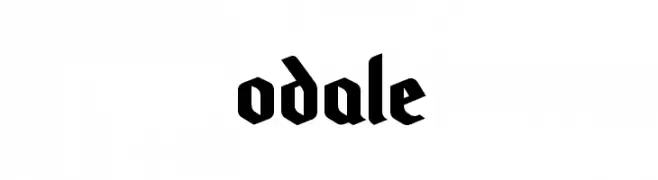
( Fonts by Pizzadude )
A bold, distressed font with a vintage, textured appearance.
( Fonts by Pizzadude )
A bold, textured font with a rustic, hand-drawn appearance.
( Fonts by Pizzadude )
A bold, hand-drawn font with a rough, artistic texture.
( Fonts by Pizzadude )
A playful, hand-drawn style with a rough, textured appearance.
( Fonts by Pizzadude )
A bold, textured font with a rugged, vintage appearance.
( Fonts by Pizzadude )
A playful, hand-drawn font with a whimsical and informal style.
( Fonts by SlawaS )
A bold blackletter font with sharp, angular lines and a gothic aesthetic.
A bold, dynamic font with sharp angles and a hand-drawn, brush-like appearance.
( Fonts by Pizzadude )
A bold, brush-style font with a rebellious and energetic character.